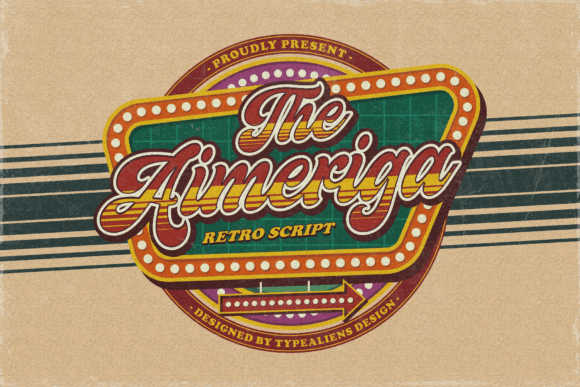
Step into a world of exquisite artistry with Aimeriga Font, a script font that evokes a sense of nostalgia and timeless elegance. Designed by the skilled hands at typealiens, Aimeriga is not just a font; it's an expression of creativity, a testament to the power of design.
Crafted with meticulous attention to detail, Aimeriga boasts fat features that dance across its body, creating a visual symphony of retro charm. Its curves are reminiscent of a bygone era, where elegance and sophistication reigned supreme. Whether you're branding your food business, creating a fashion line, or seeking a touch of retro flair for your designs, Aimeriga is your perfect companion.
But Aimeriga is more than just a visually stunning font. It possesses a soul, a personality that resonates with the user. Its relaxed and casual feel invites you to explore new design possibilities, to break free from the mundane and embrace the extraordinary. Aimeriga seamlessly blends with various layouts, adapting effortlessly to your creative vision.
With Aimeriga, you're not just downloading a font; you're embarking on a creative journey, a voyage of self-expression where your ideas take center stage. Whether you're a seasoned designer or just starting out, Aimeriga will elevate your work to new heights, adding a touch of magic to every project you undertake.